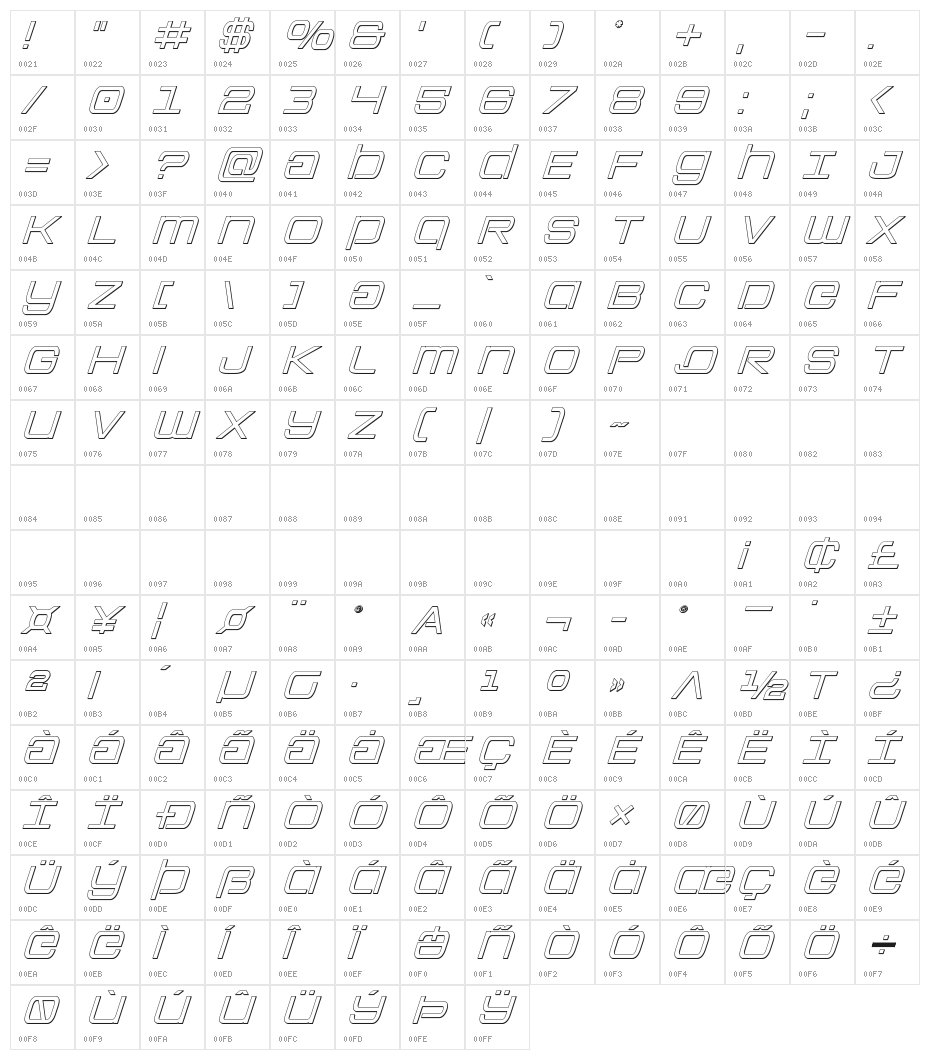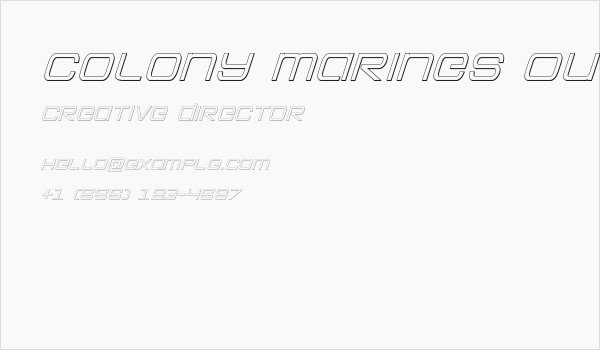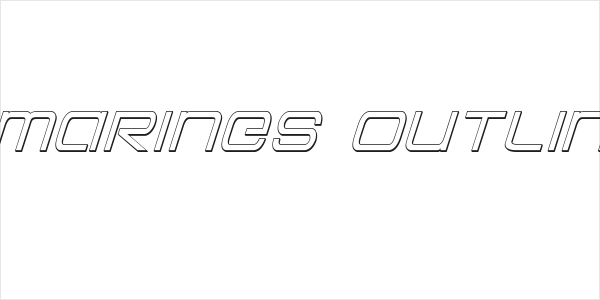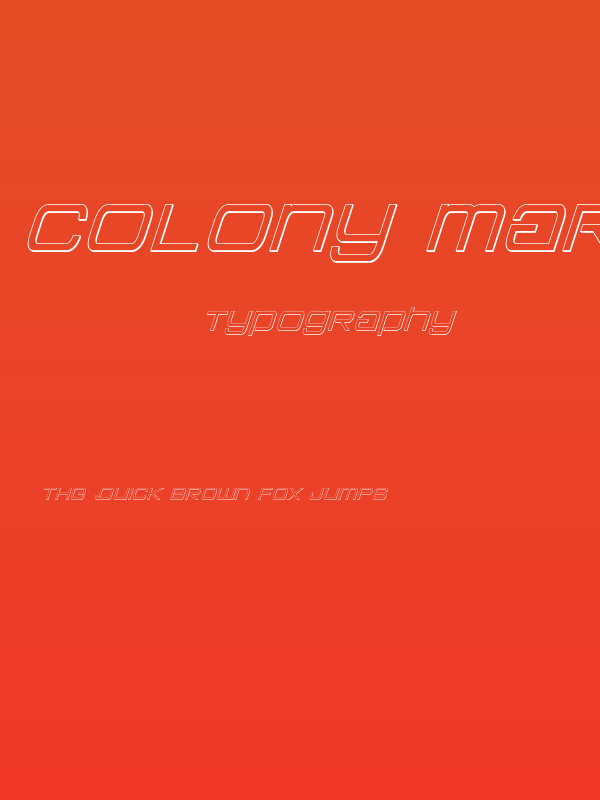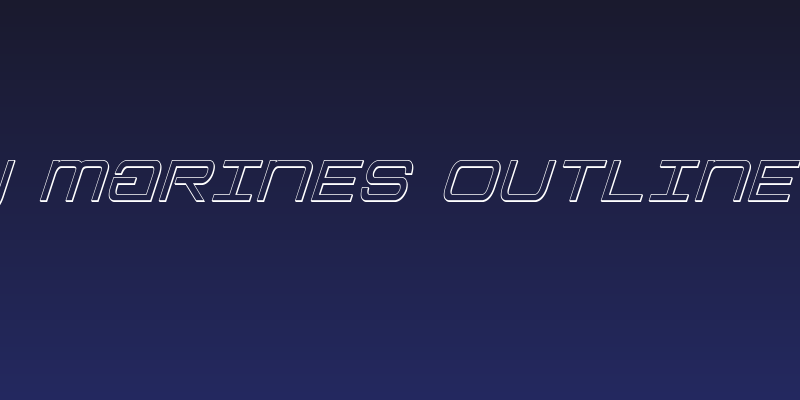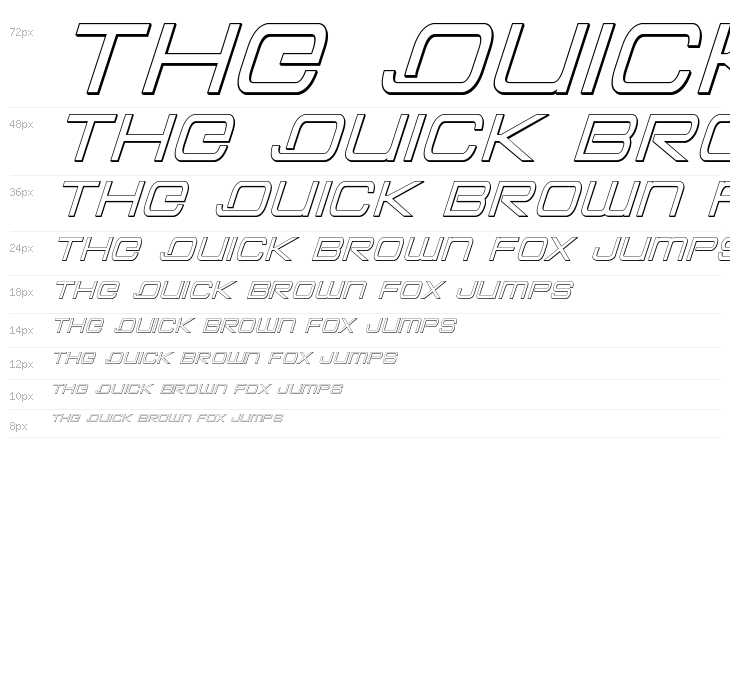
Colony Marines Outline Italic Font
Colony Marines Outline Italic Description
This font features a modern, futuristic design with an outlined style that gives it a unique and striking appearance. The characters are italicized, adding a dynamic and forward-leaning aspect to the text. Each letter is crafted with precision, maintaining a consistent stroke width throughout, which contributes to its clean and sleek look. The font's geometric shapes and sharp angles make it ideal for projects that require a contemporary and tech-savvy aesthetic. The spacing between characters is balanced, ensuring readability while maintaining its distinctive style.